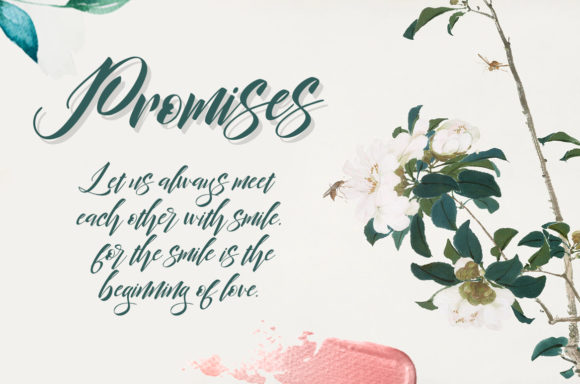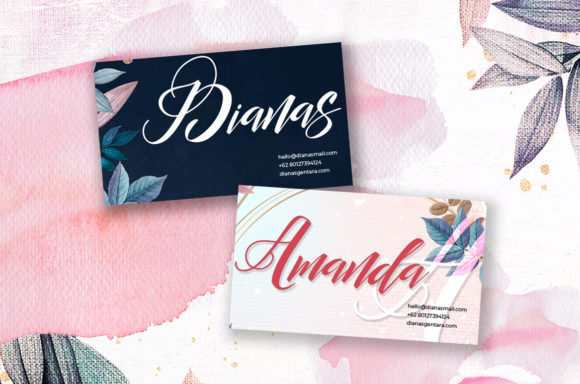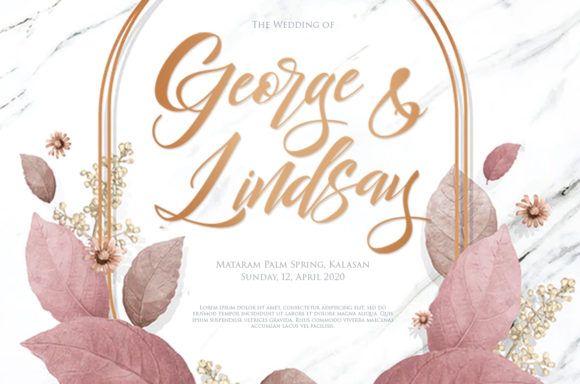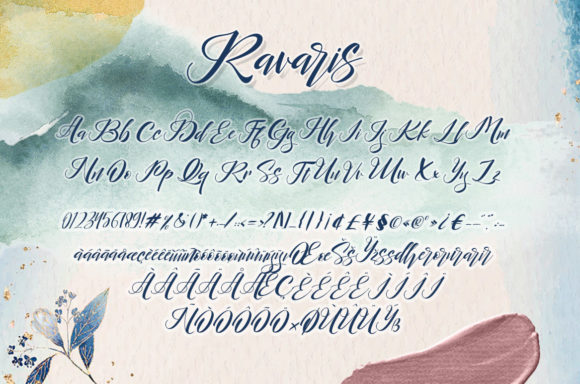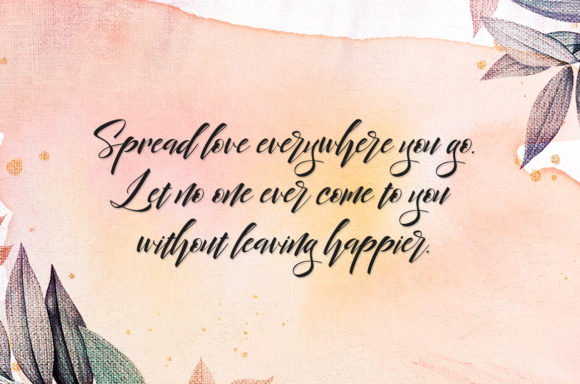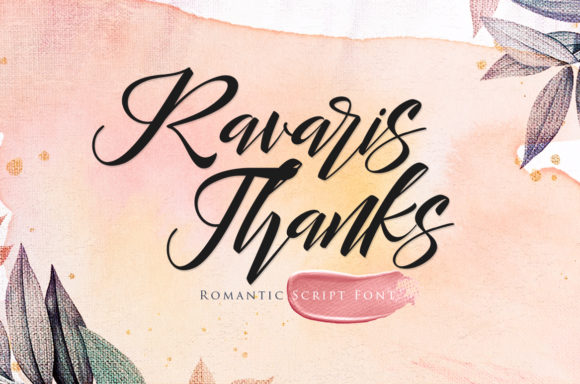
Ravaris Font
About Ravaris Font
Ravaris embodies fun, quirkiness and authenticity. This enchanting script font will turn any creative idea into a true standout. Get creative with its childlike playfulness, and use it to brighten up any kids and school project!